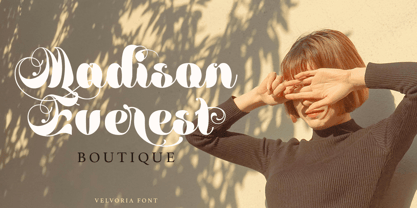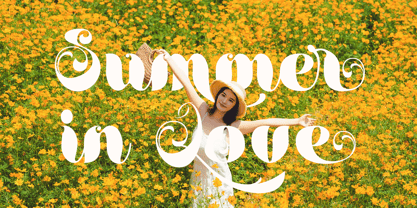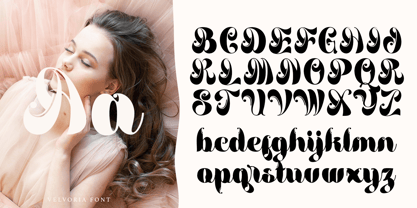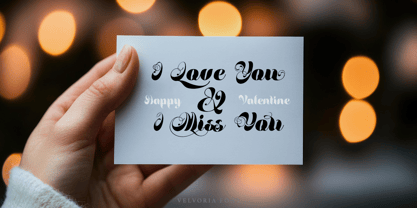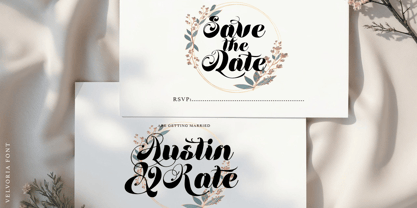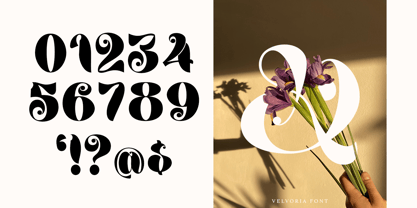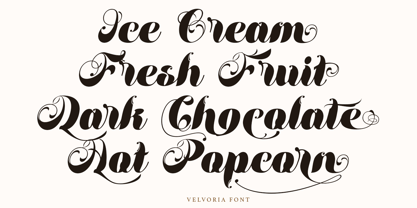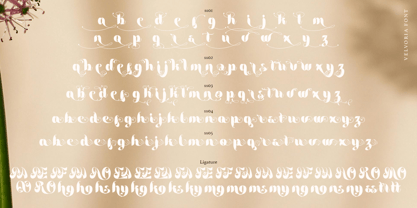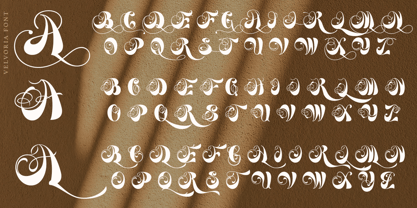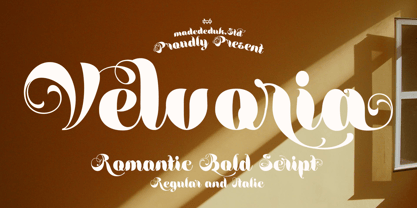
Velvoria
by madeDeduk
The Velvoria Font Family was designed by madededuk and published by madeDeduk. Velvoria contains 2 styles and family package options. More about this family
Introducing Velvoria, a decorative script typeface that captivates with its bold strokes, dramatic curves, and intricate ornamental details, exuding an artistic and elegant character. Its unique and expressive letterforms make this font perfect for design projects that demand a striking appearance. Ideal for branding, titles, digital content, and printed materials, Velvoria ensures your message stands out with strength and memorability. With a variety of weights and OpenType features, this font enhances versatility, making it suitable for both modern and classic designs. Whether you're creating eye-catching advertisements or elegant invitations, Velvoria adds a touch of sophistication to any project.